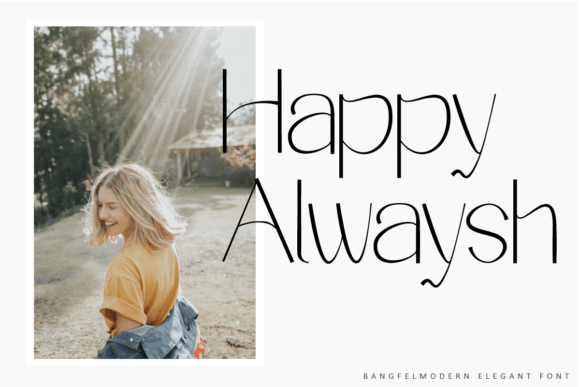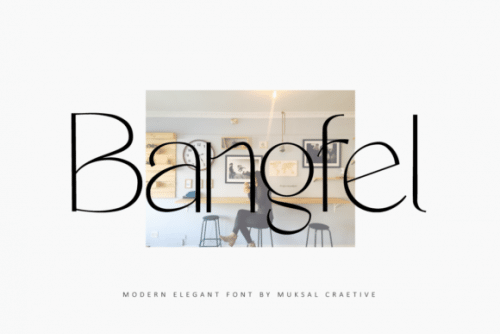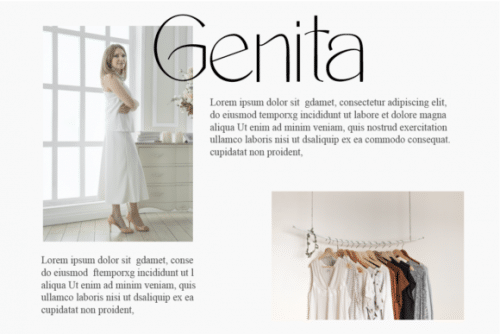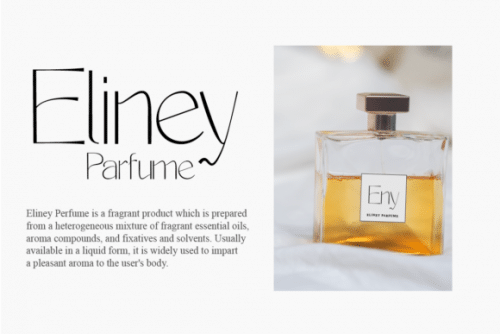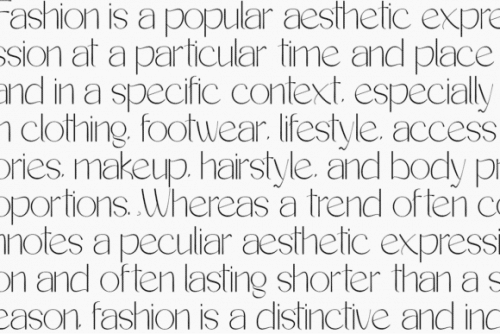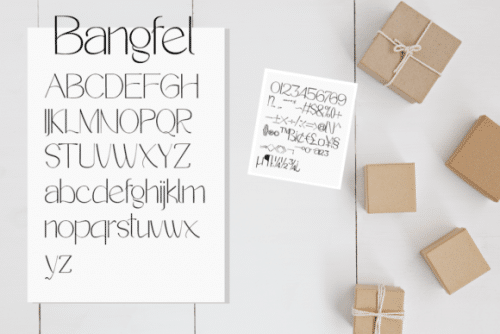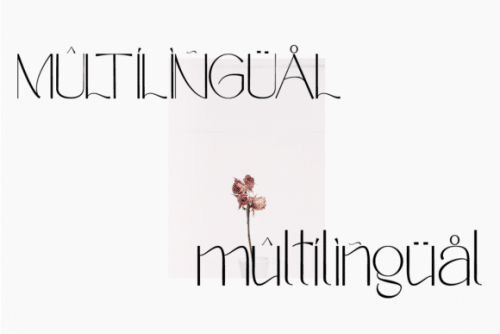
Bangfel is a modern font that is both memorable and stylish. It has a clean, thin and smooth vibe and it will be a hit for any design that you want to add it to.